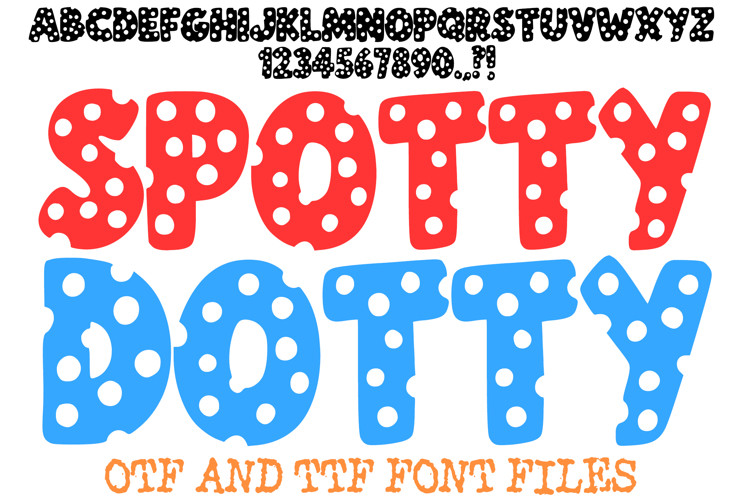
Spotty Dotty Font Letters Typography Hand Drawn ABC OTF
Make a bold statement with the Spotty Dotty Font! This fun, hand-drawn typeface features thick, rounded letters and numbers completely filled with vibrant white polka dots against a solid black base. It is the perfect choice for designers and crafters looking to add a retro yet modern "pop" to their work.
The organic, slightly irregular outlines give this font a friendly, "doodled" personality that works beautifully for children’s products, festive stationery, and quirky branding. Whether you are creating a standout birthday card, fun classroom labels, or unique apparel, the Spotty Dotty Font brings instant energy and joy to every word you type.
Unique Polka Dot Pattern: Every character (A-Z) and number (0-9) is filled with a fun, classic dot motif.
Bold Display Style: Thick, chunky letterforms ensure your text remains legible and impactful even from a distance.
Hand-Drawn Aesthetic: Organic outlines provide a charming, artisanal feel to your digital designs.